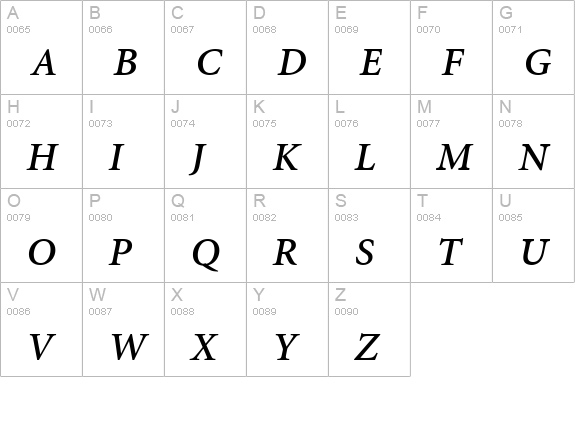
Atlantix SSi Semi Bold Italic Font Details
Atlantix SSi Semi Bold Italic is a strong, high-contrast, italic variant in the Atlantix typeface family \xE2\x80\x94 well suited to headlines, attention-grabbing titles, and strong calls-to-action.
Atlantix SSi Semi Bold Italic font is a modern and sleek typeface that exudes a sense of sophistication and elegance. With its bold yet graceful design, this font is perfect for adding a touch of style to any project. The semi-bold weight and italic styling of Atlantix SSi create a dynamic and eye-catching look that is sure to make a statement. What's even better is that this stunning font is available for free download at FontsMarket.com. Whether you're working on a branding project, website design, or any other creative endeavor, Atlantix SSi Semi Bold Italic font is a versatile choice that will elevate your work to the next level. Don't miss out on the opportunity to add this beautiful typeface to your font collection today!